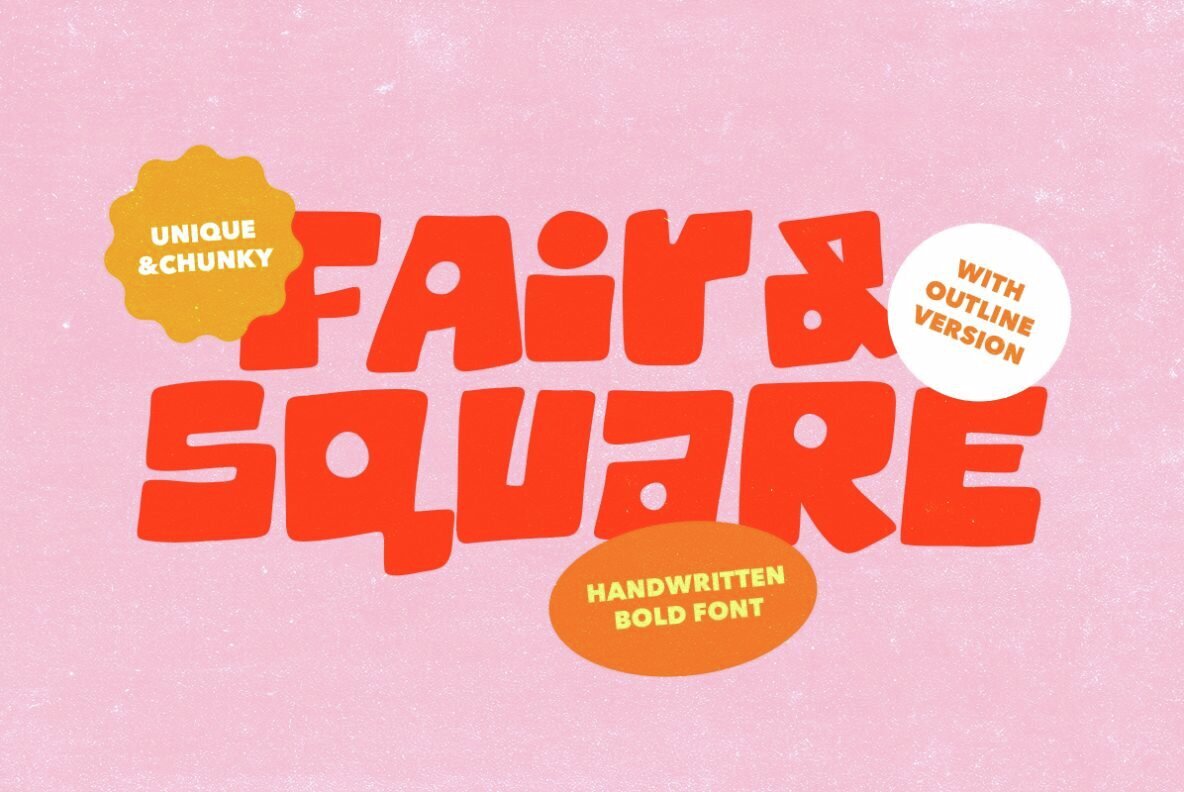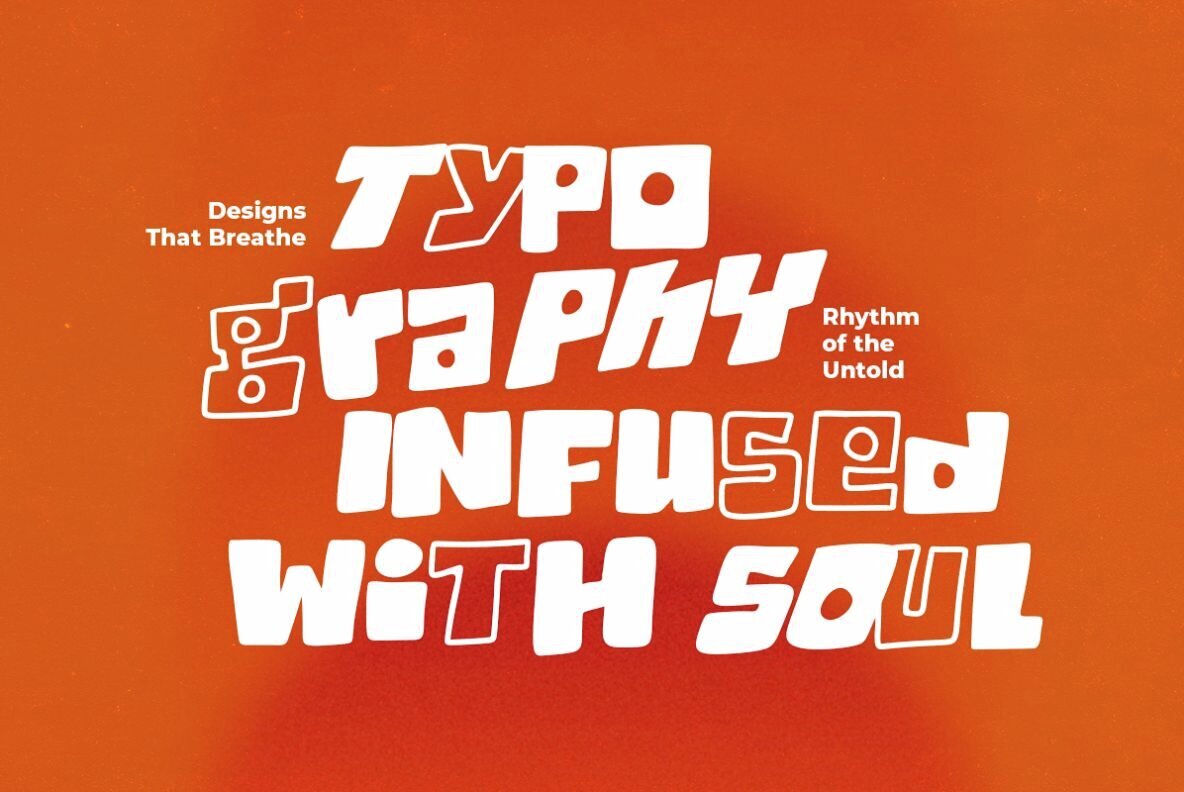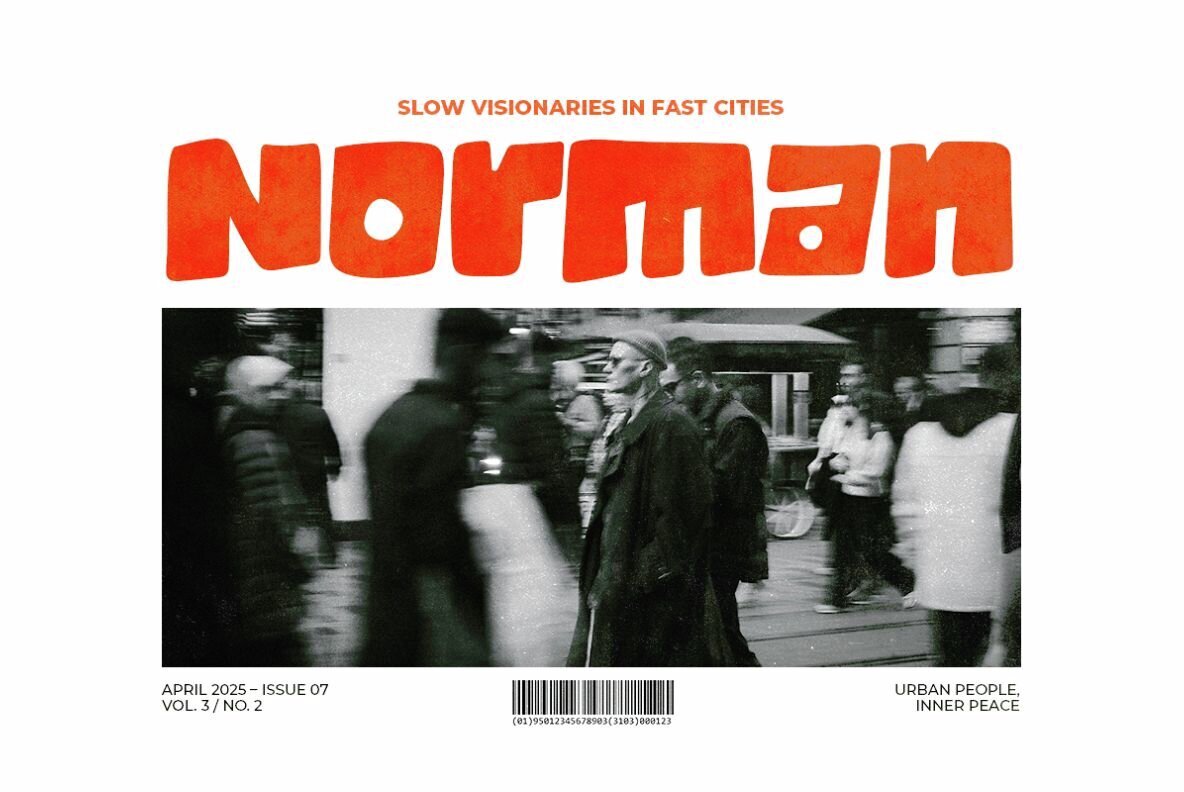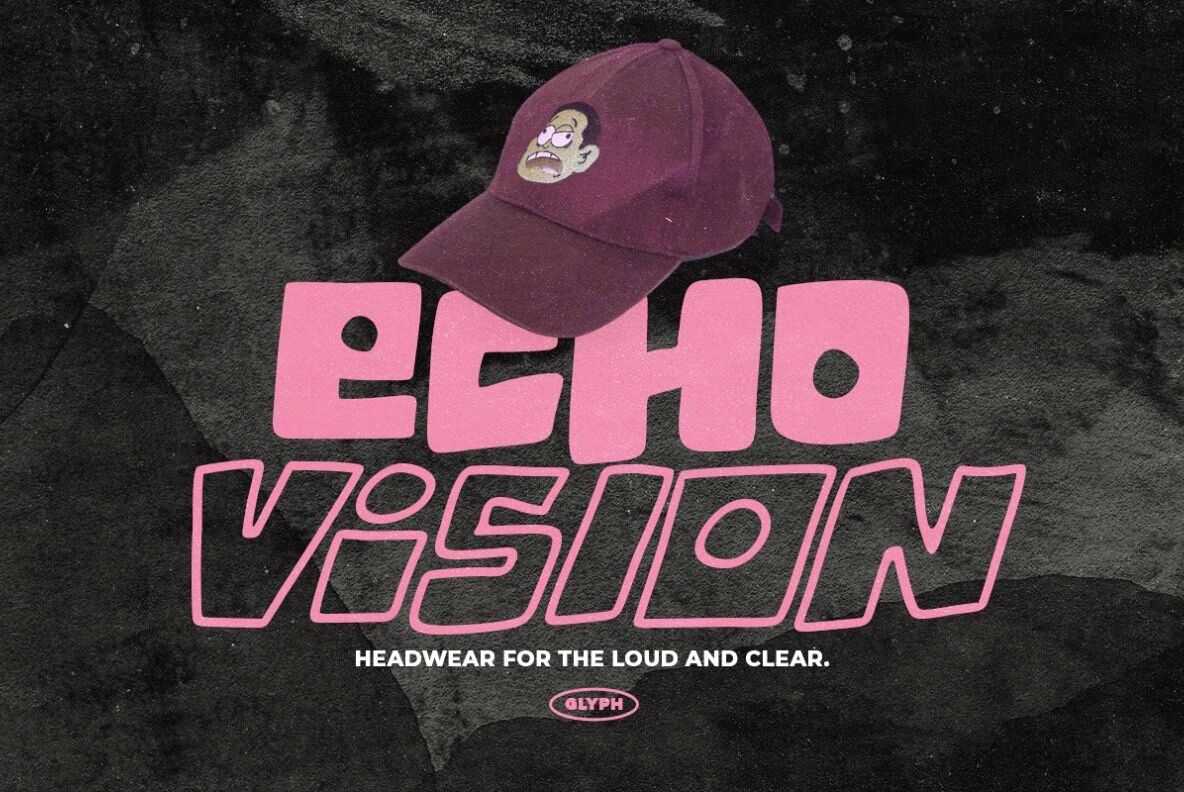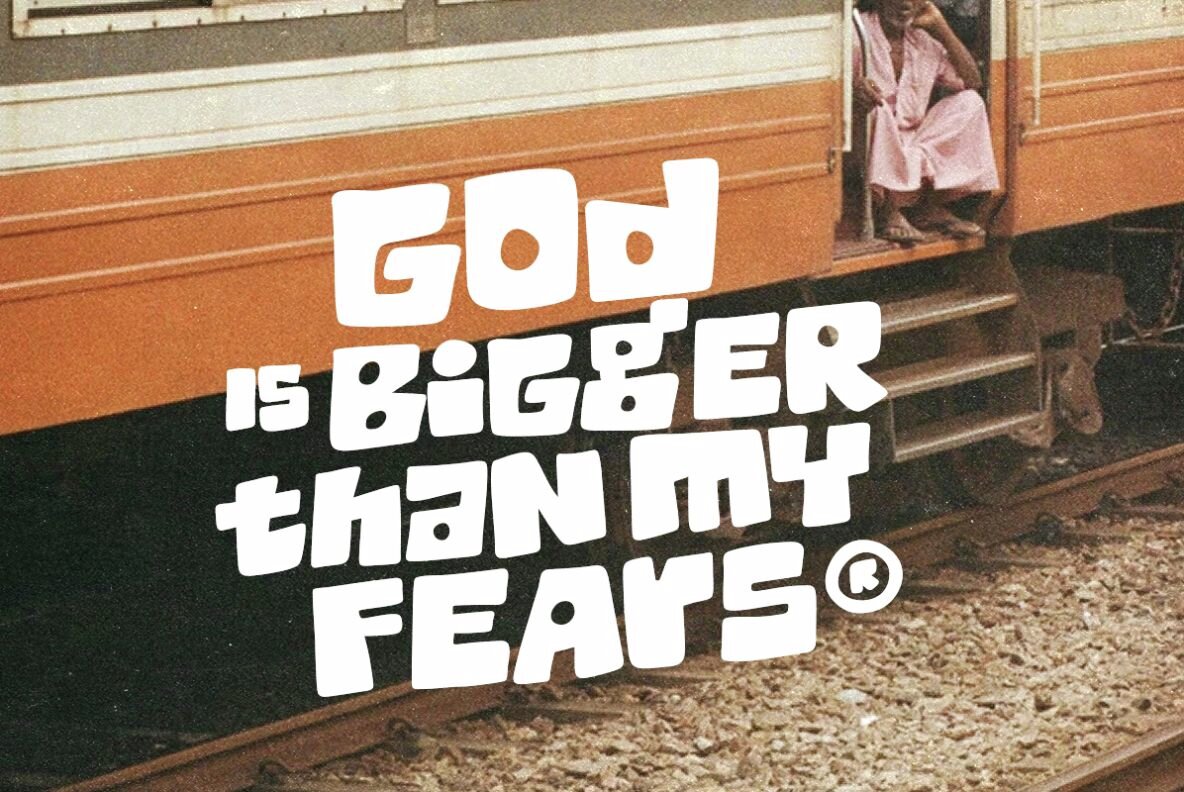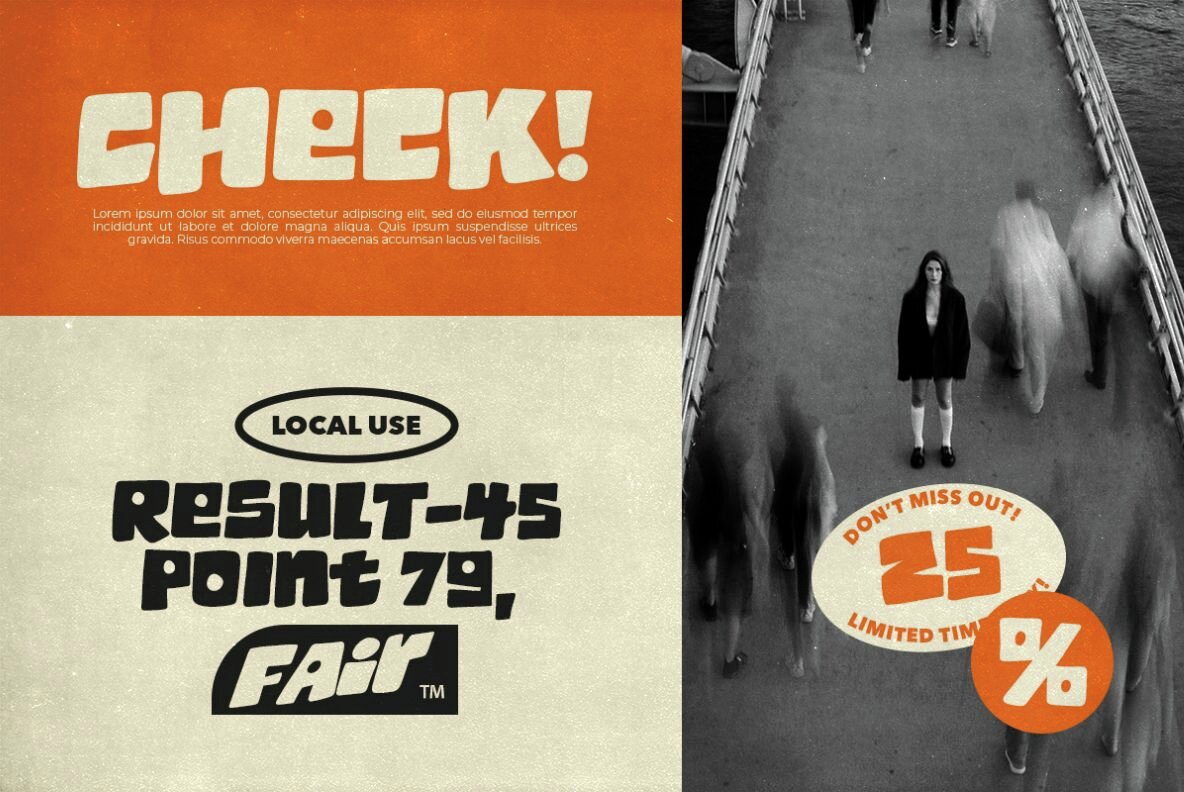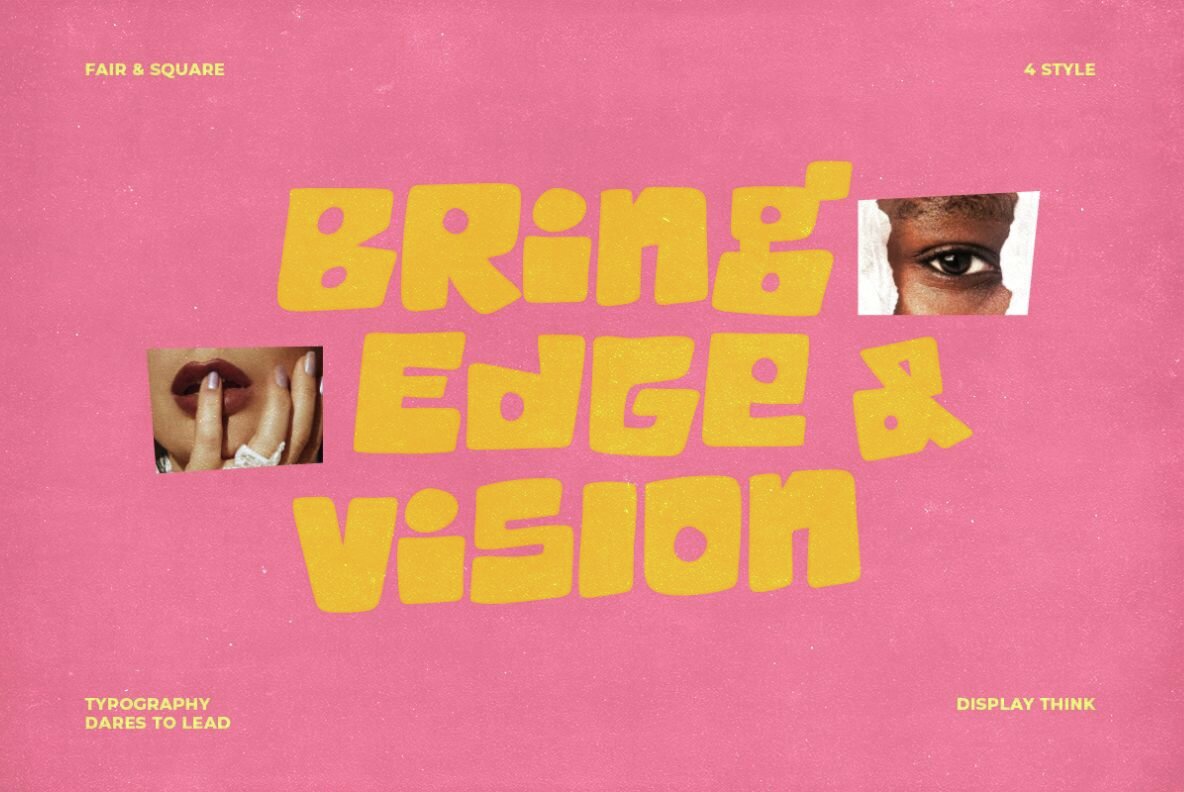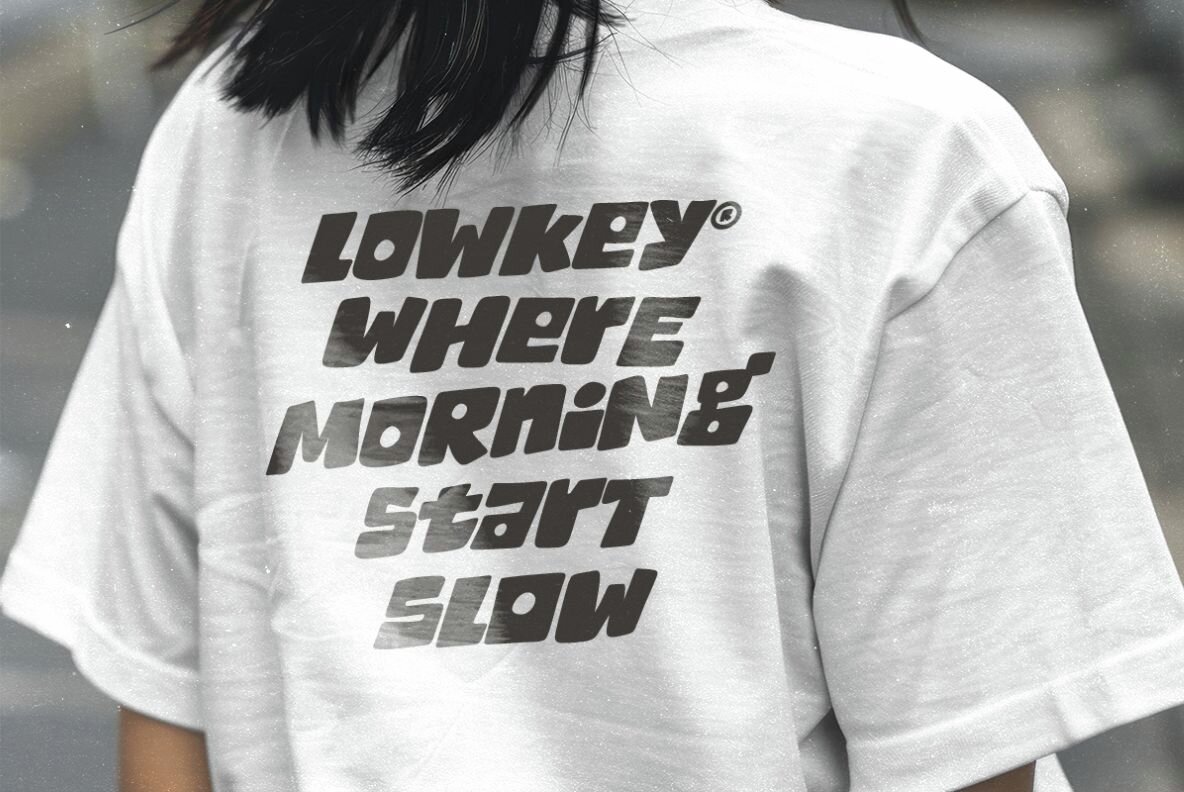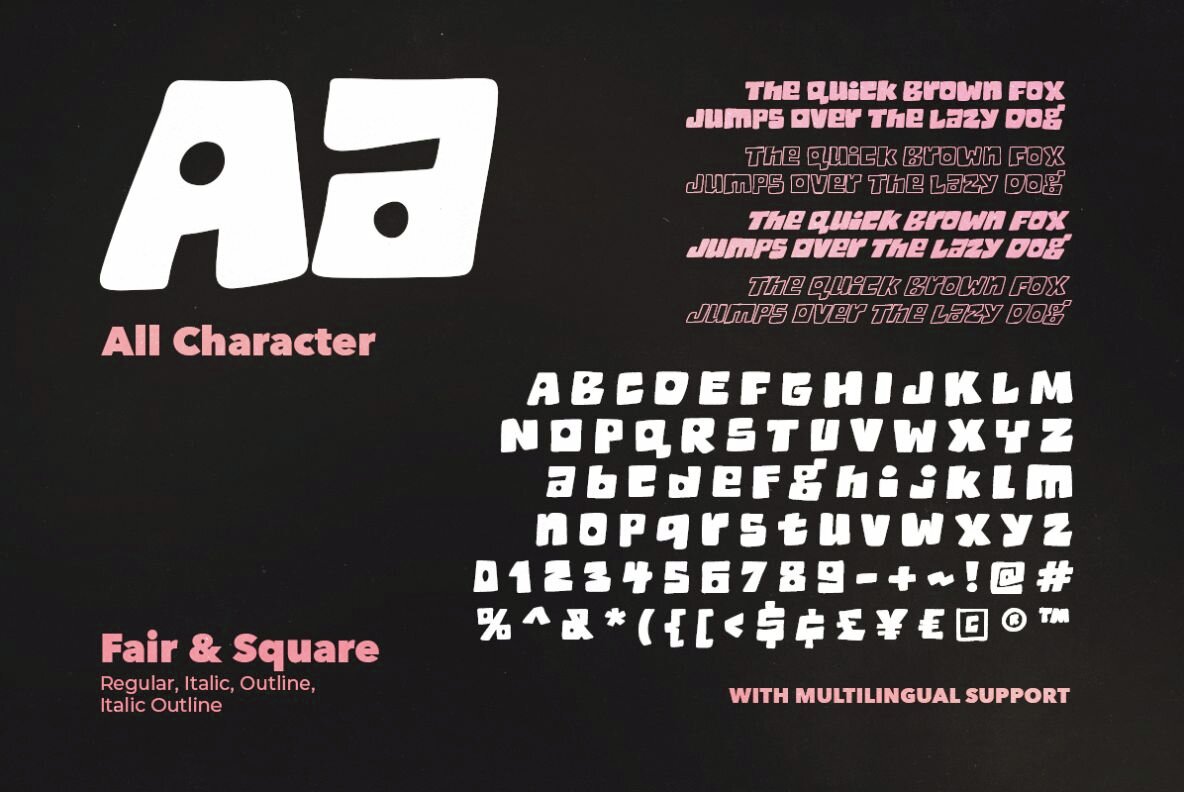
Fair Square Font
The bold allure of Fair Square captivates with its distinctive and robust letterforms, seamlessly blending both uppercase and lowercase styles to enrich your designs. Its versatility is amplified through the inclusion of an italic and outline version, providing the flexibility to adapt to the aesthetic needs of any project. Perfect for a range of creative applications, Fair Square effortlessly enhances posters, quotes, branding initiatives, and logotypes. Designed with inclusivity in mind, Fair Square supports multiple languages, catering to a global audience without compromising on style.Fair Square: Bold Chunky Font for Impactful Designs